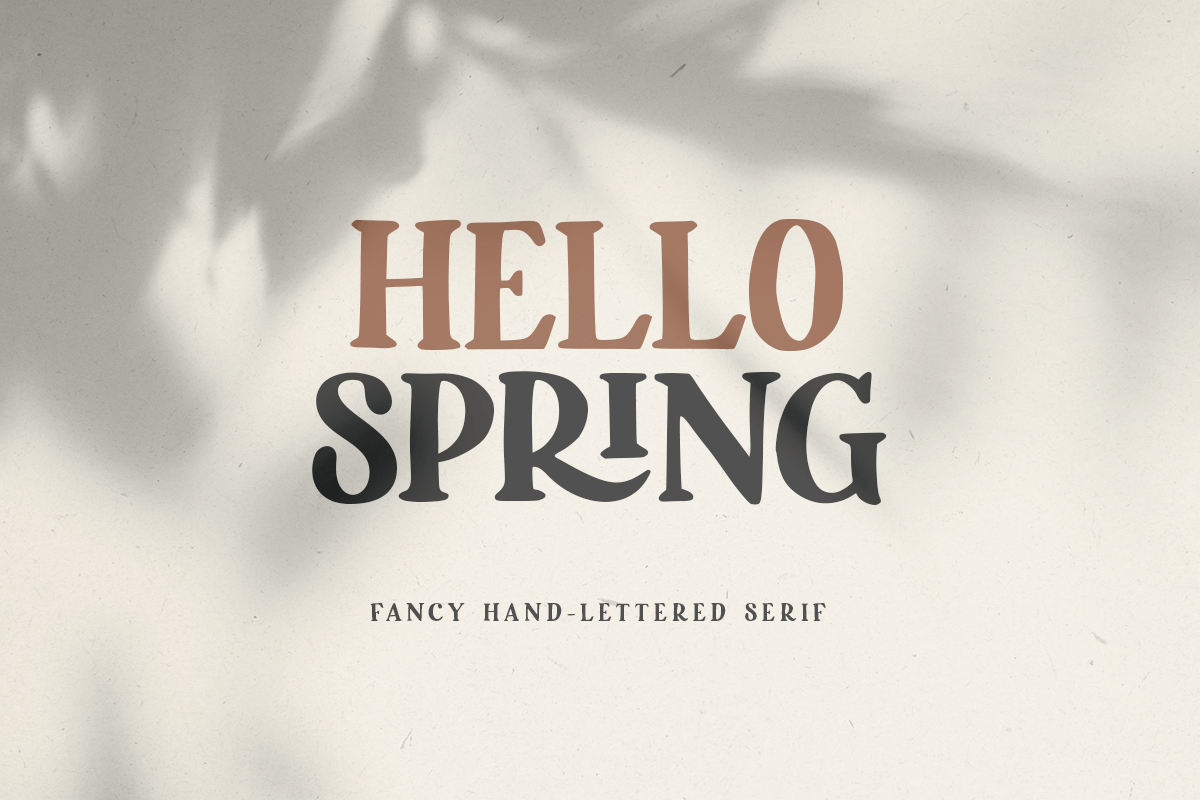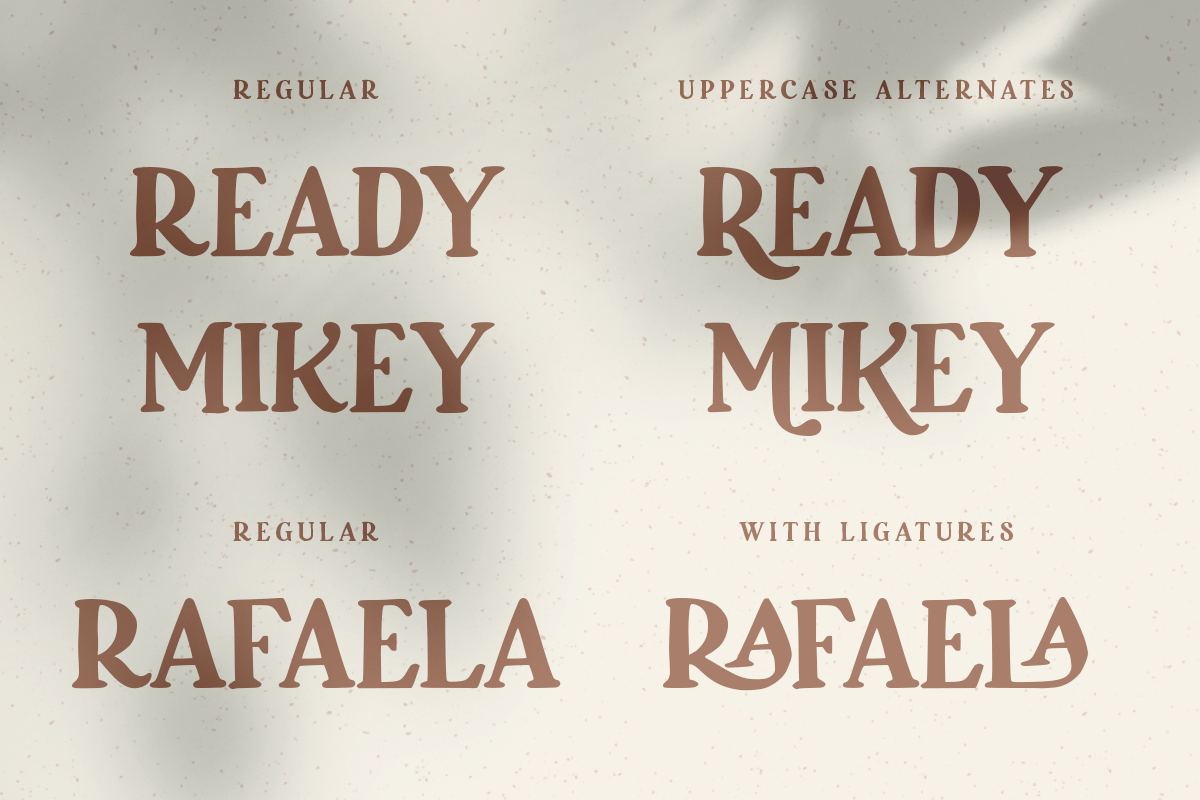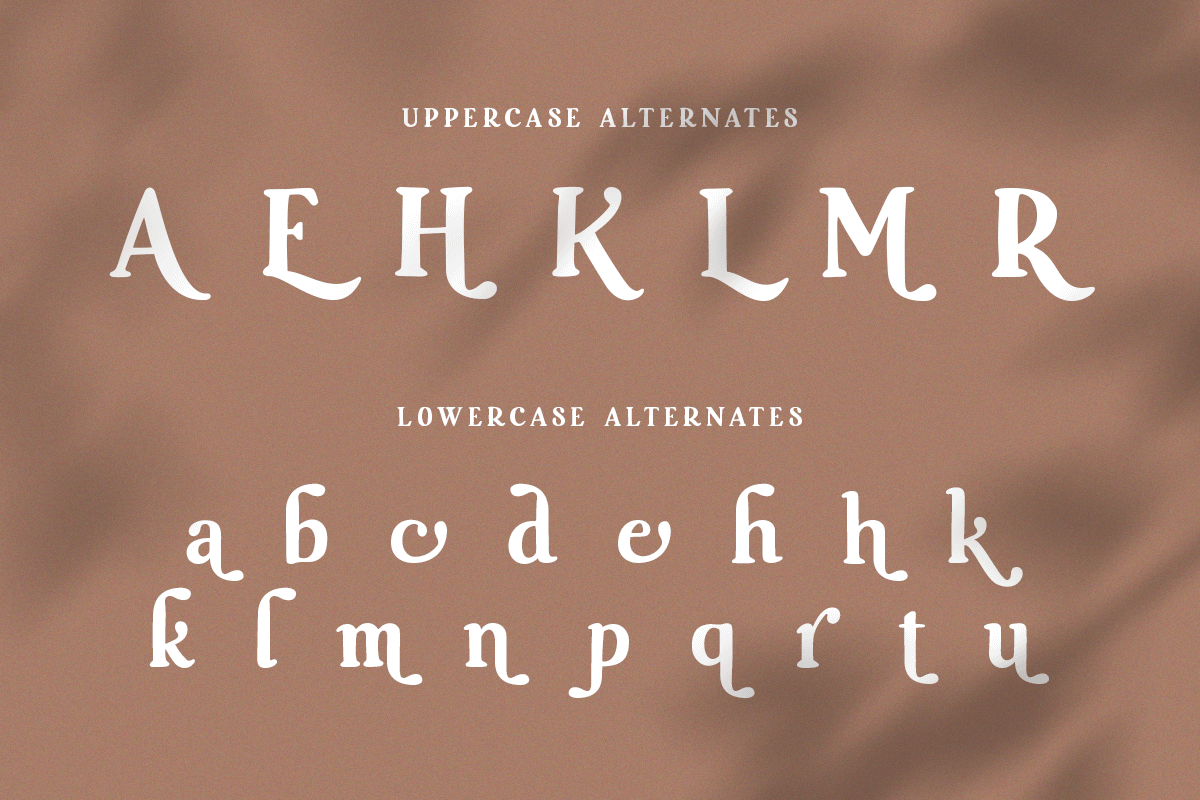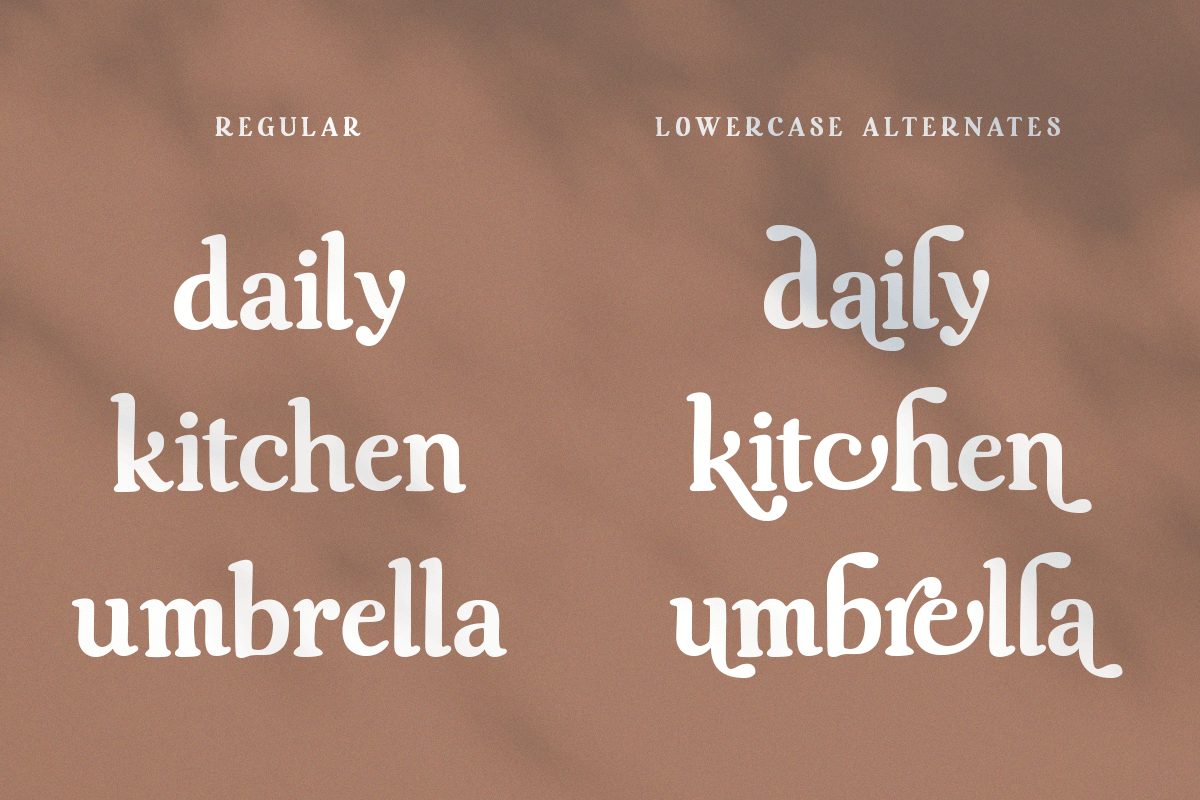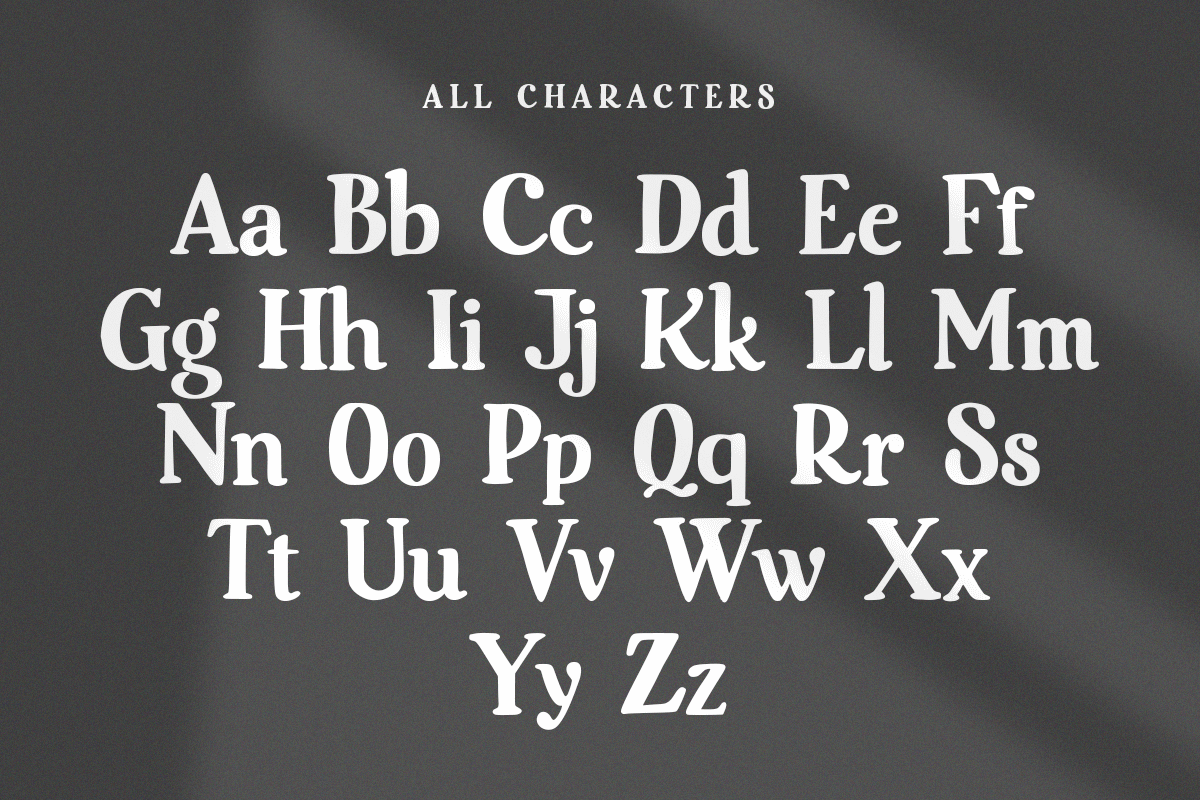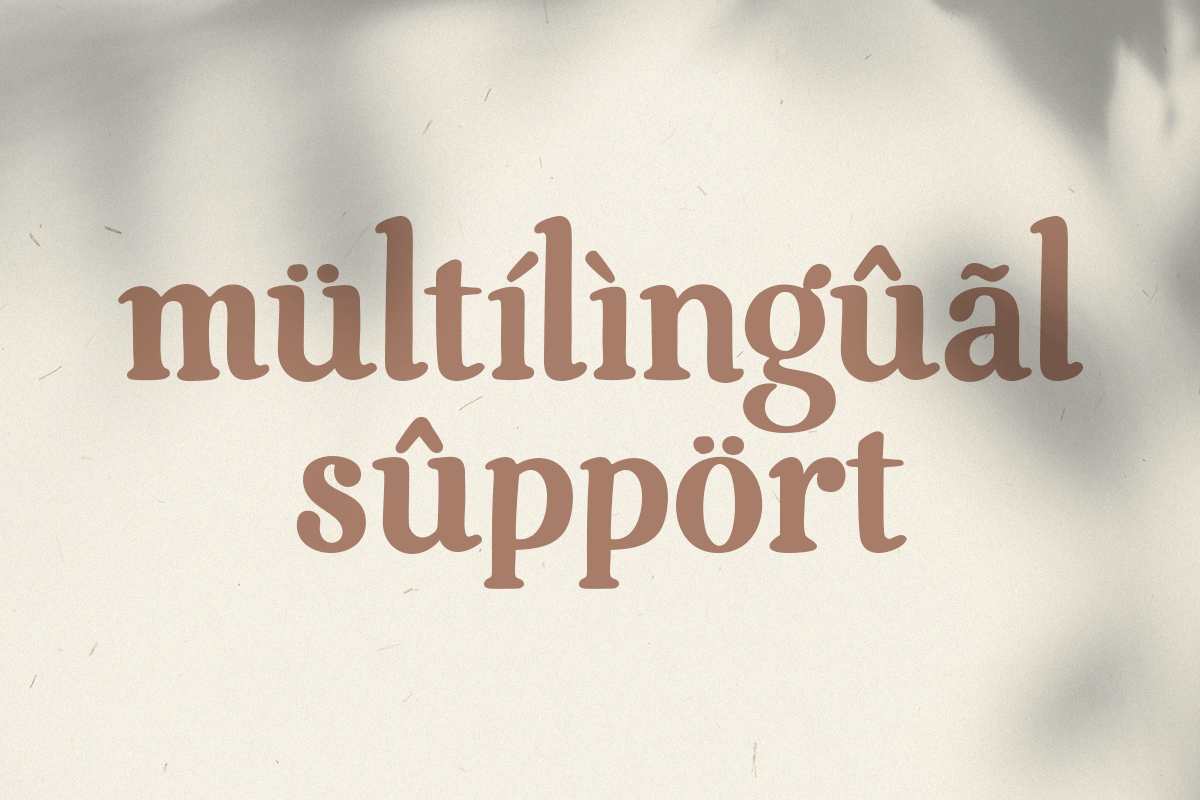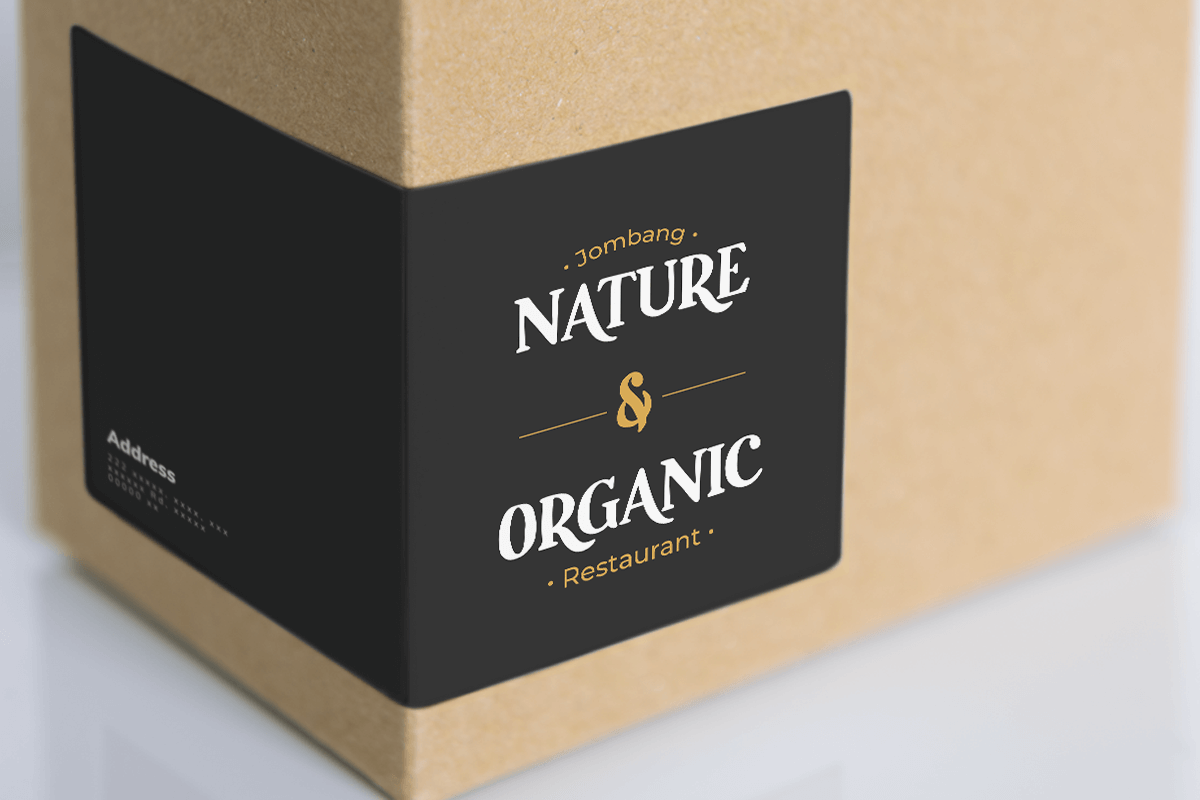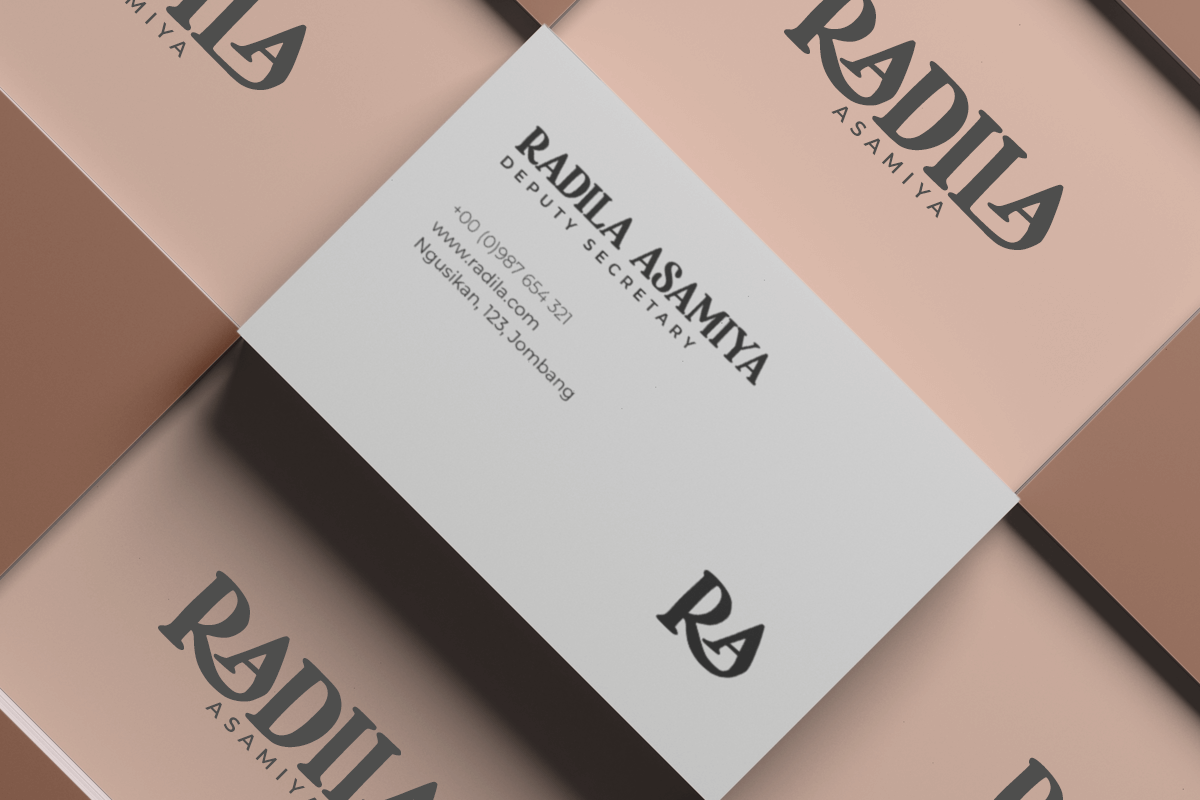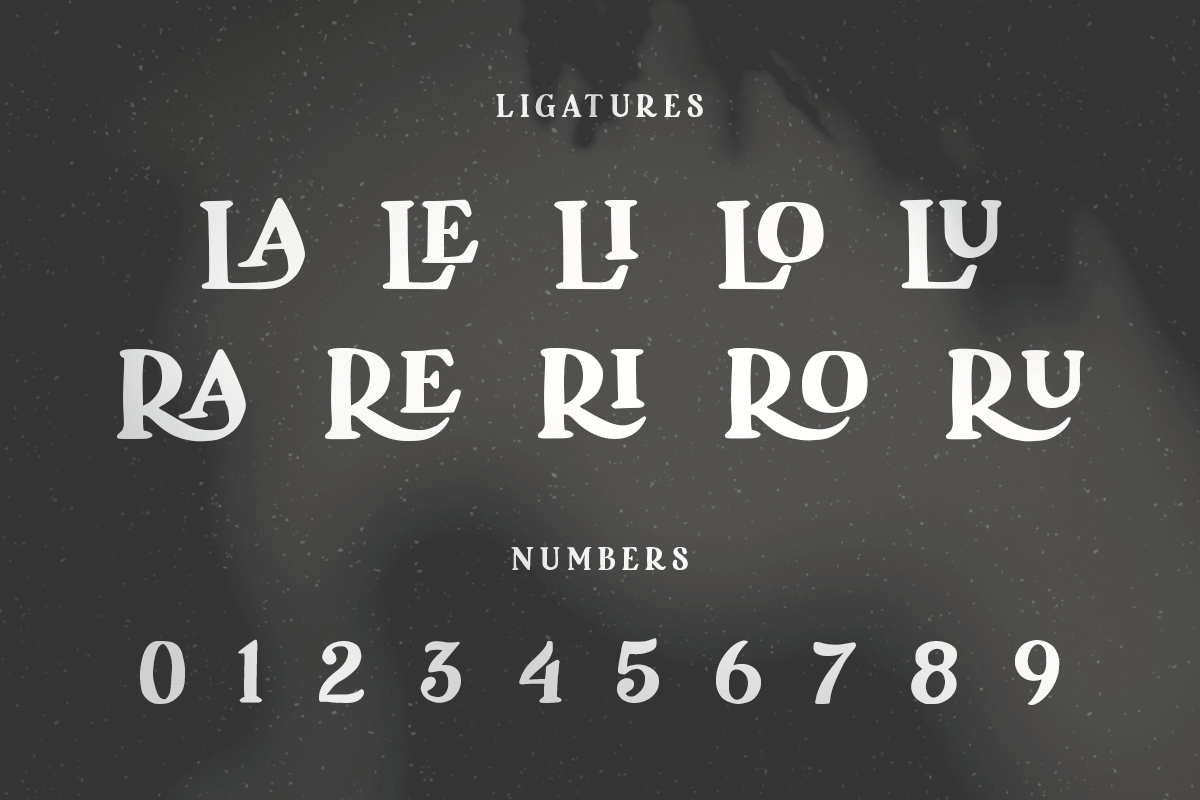
Hello Spring Awesome Serif
-Fancy Hand Lettered Serif Font
Hello Spring Awesome Serif
Hello Spring is a beautiful handwritten Serif font. Each font is stylish and delicate. This font is specially made for branding, design quotes or logos, modern but simple, for any use such as print, commerce, and a lot more with playful but easy to work with results.